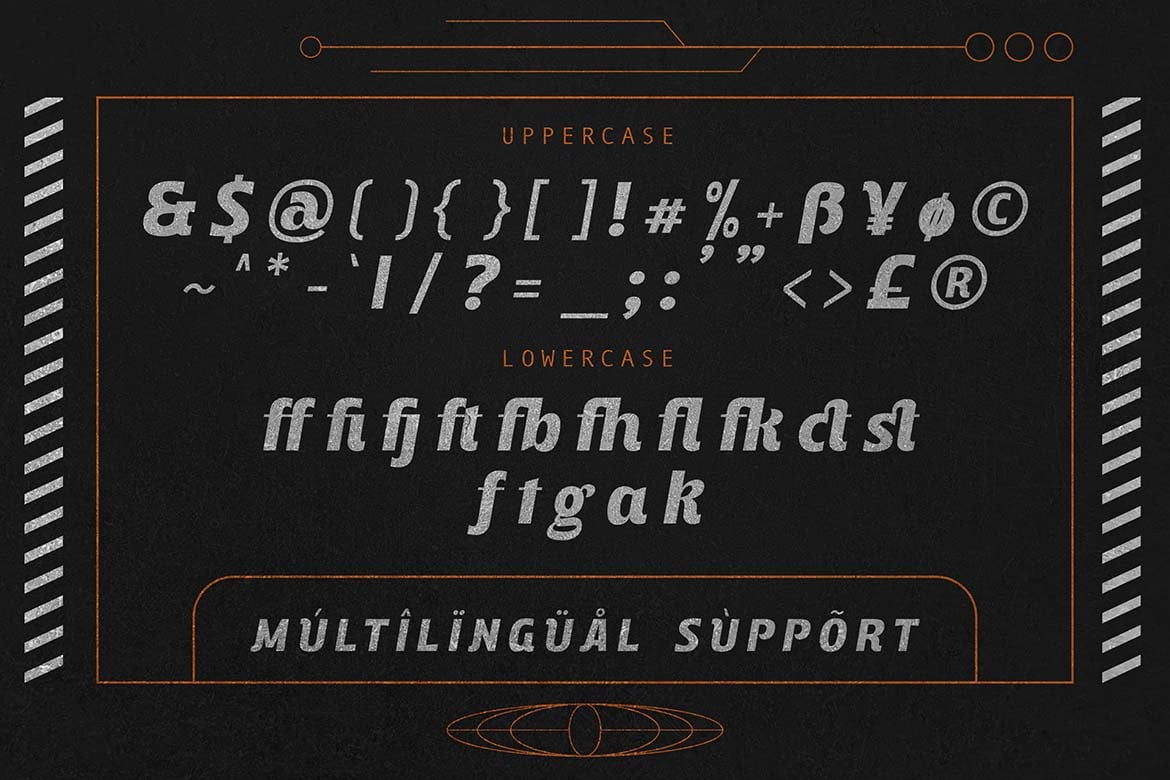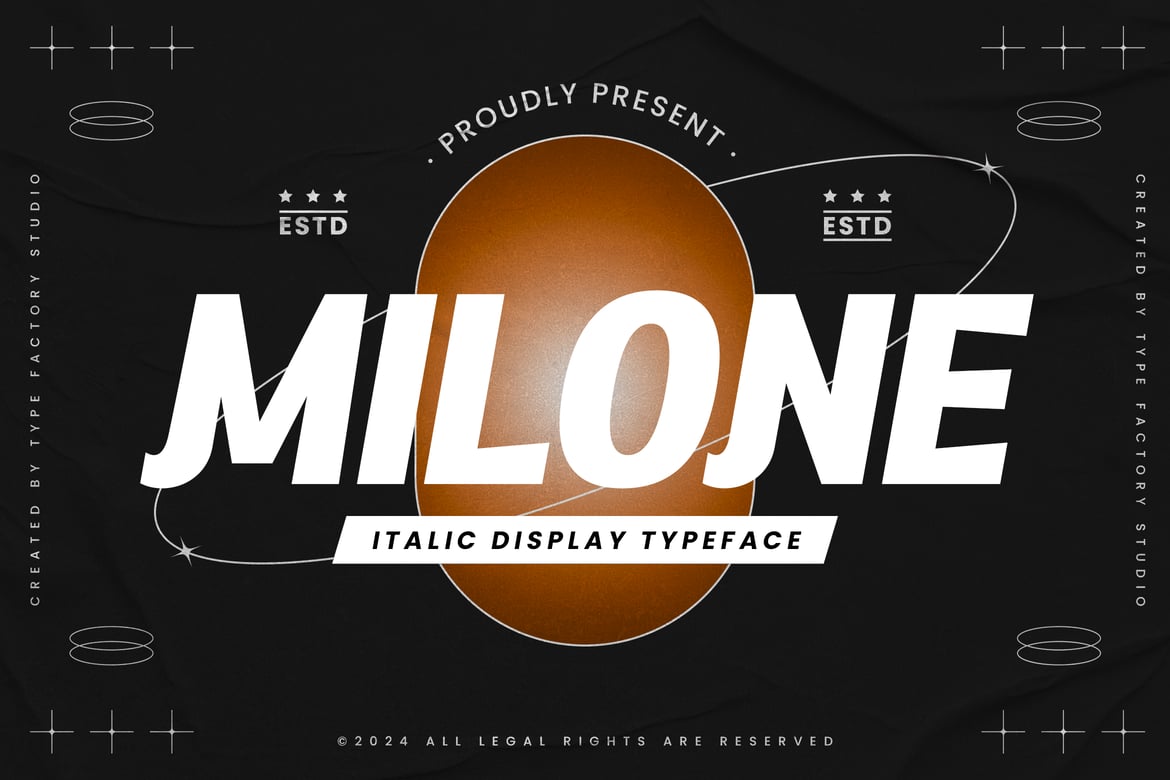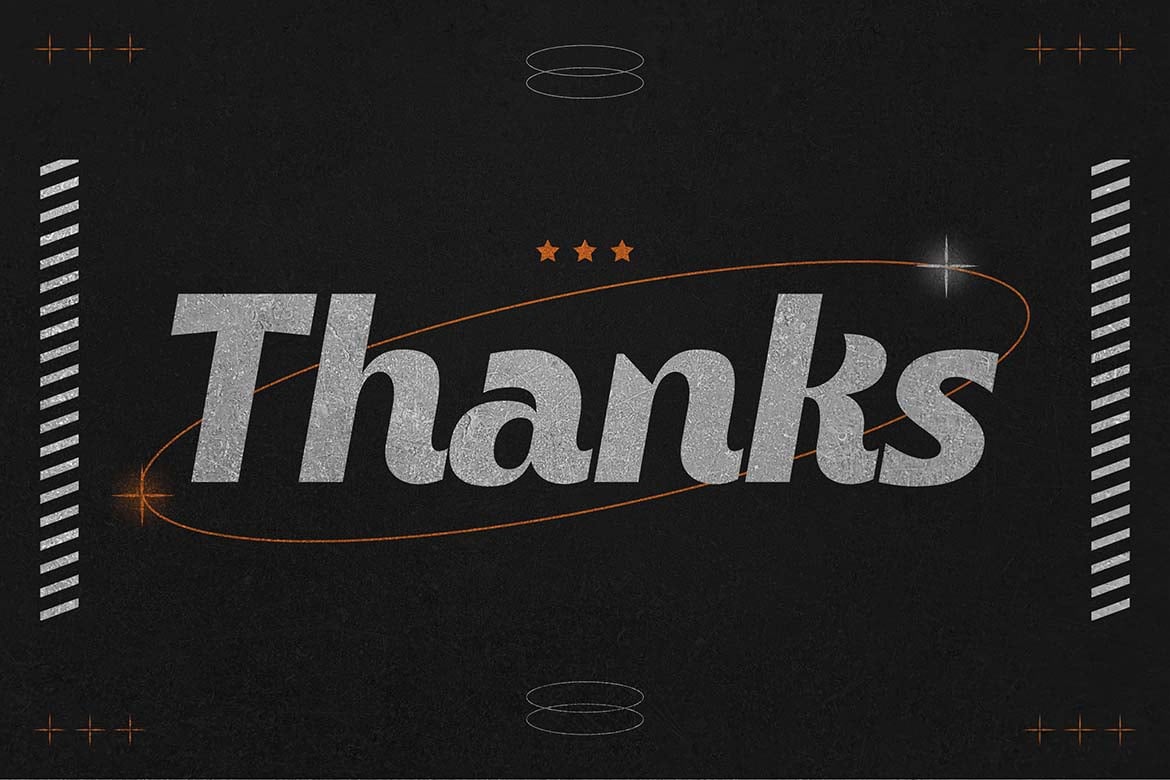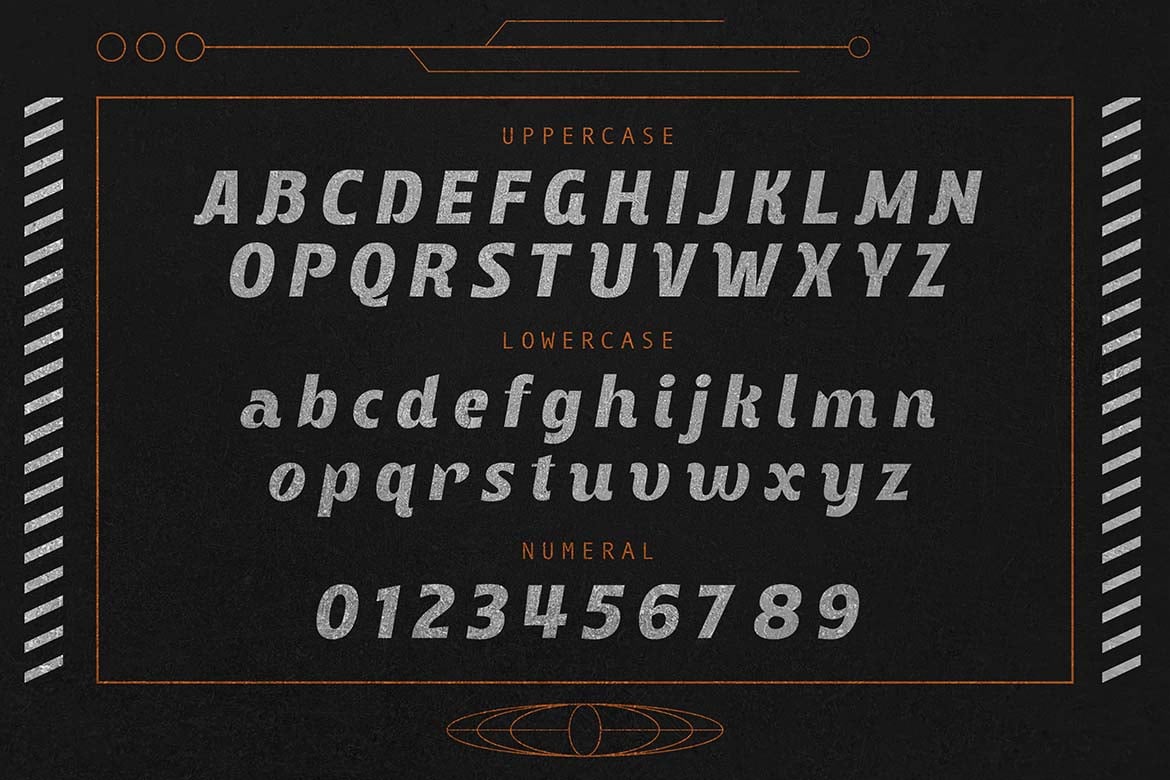
Milone – Italic Display Font
Milone is a sleek and stylish italic display font designed to add a touch of elegance and movement to your designs. Its slanted, dynamic letterforms give it a sense of speed and fluidity, making it perfect for fashion branding, magazine headlines, posters, and digital media. Milone’s sophisticated yet modern look creates a striking visual impact, ensuring your designs stand out with flair and finesse. Whether used for print or web, Milone brings a refined, italicized grace to any project.